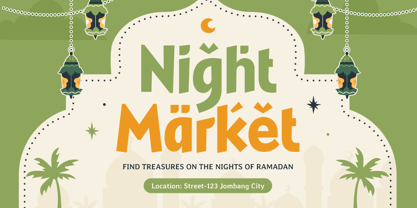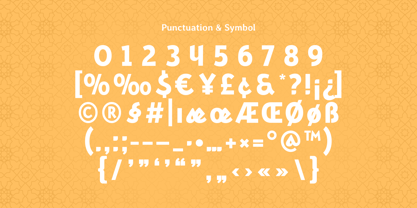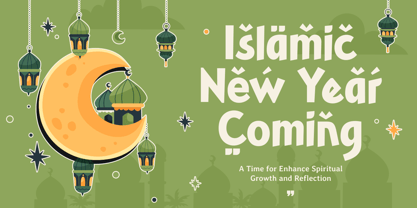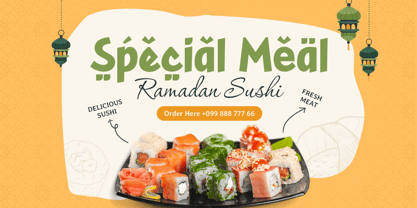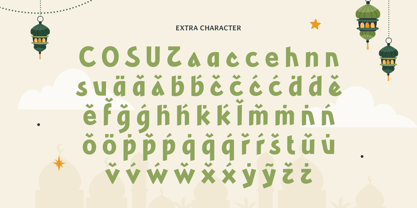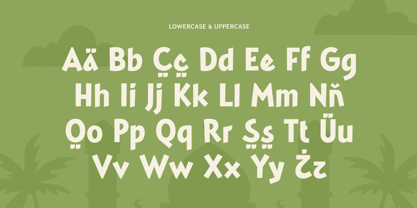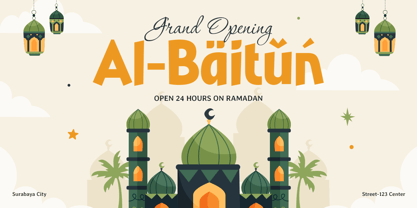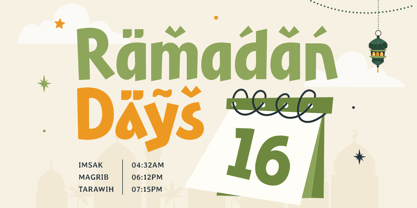
Arabic Fancy
by Sensatype Studio
The Arabic Fancy Font Family was designed by Zamroni Hamzah and published by Sensatype Studio. Arabic Fancy contains 1 styles.
Arabic Fancy - Fun Ramadan Font
Arabic Fancy is a fun and vibrant Arabic font designed to add a cheerful and creative touch to your Ramadan-themed projects. Perfect for greeting cards, children’s books, social media posts, and festive banners, Arabic Fancy captures the spirit of celebration with its whimsical and modern design.
Inspired by the joyous atmosphere of Ramadan and the artistic flow of Arabic calligraphy, Arabic Fancy combines cultural authenticity with playful typography. This font ensures your designs stand out, whether for digital or print use, by conveying a sense of warmth and festivity.
Add Arabic Fancy to your design collection to create joyful and memorable visuals this Ramadan season.
Arabic Fancy Font Features:
• Playful and Fun Arabic Typography
• Includes Punctuation, Numbers, and Symbols
• Uppercase and Lowercase Characters
• OpenType Features for enhanced design possibilities
Designers: Zamroni Hamzah
Publisher: Sensatype Studio
Foundry: Sensatype Studio